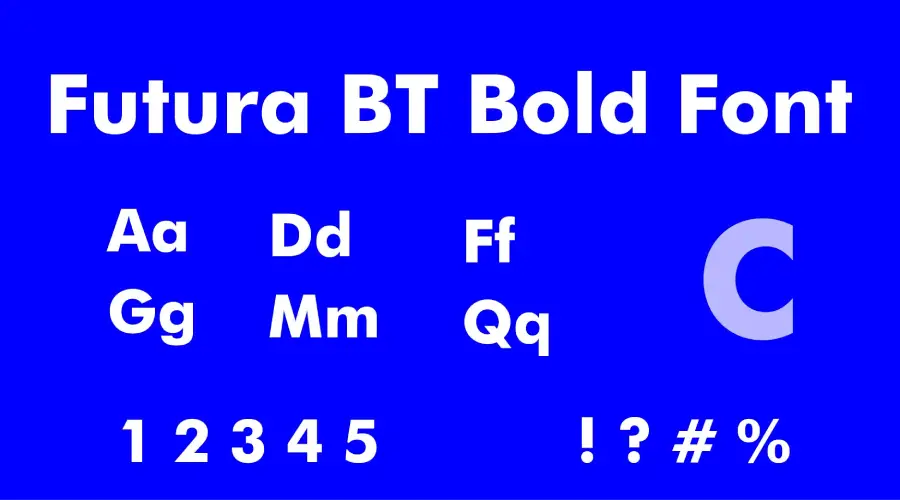
Futura BT Bold Font
Futura BT Bold font is a variant of the Futura font family, designed by Paul Renner in 1927. Futura is one of the most influential and popular fonts of the 20th century. It represents the Bauhaus movement and modernist aesthetic. Futura is a geometric sans-serif font with simple shapes and no serifs or decorative elements. Futura is known for its elegance, simplicity, and readability.
It is a version of the Futura font created by Bitstream, a digital type foundry. Bitstream modified and expanded the original Futura font to include more characters, languages, and styles. This font is a bold weight of the Futura BT font, which means it has thicker strokes and more contrast.
Futura BT Bold font is perfect for logos, headlines, posters, banners, flyers, and magazines. The font can also be used for personal or commercial projects if a license is purchased and the font is not modified or redistributed. The font is available in uppercase and lowercase letters, numbers, and symbols.